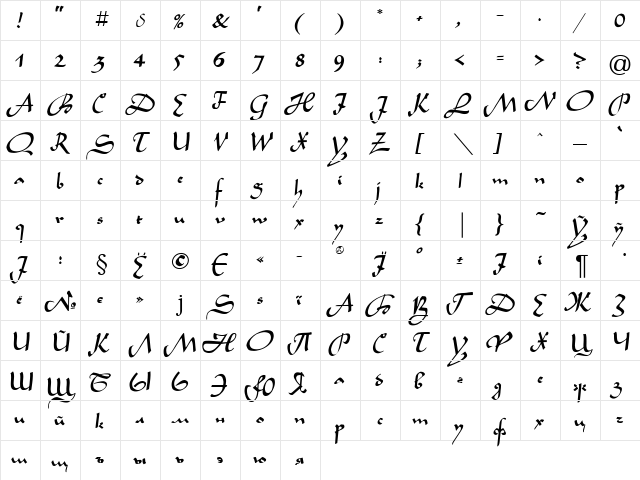
LegendeC Normal
| Year | 1937 |
Design Context for LegendeC Typeface
LegendeC is a composed and adaptable typeface that performs quietly and consistently across a wide range of design contexts.